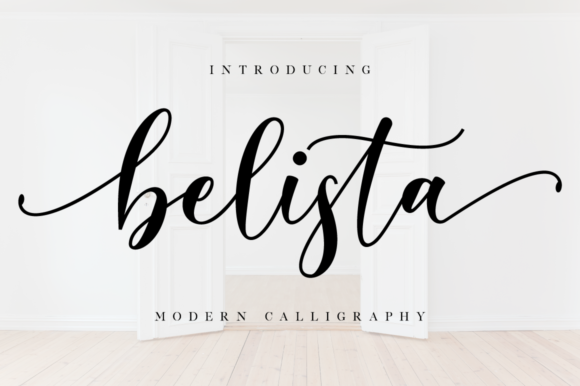
The Perfect Script for Your Next Design Masterpiece
Have you ever stared at a blank page, searching for that perfect font to bring your design to life? We’ve all been there, pouring over font libraries, scrolling through endless options, until the perfect one finally catches our eye. For designers, finding the right font can be the difference between a good design and a great one. That’s why we’re excited to introduce you to the Belista Script Font, a beautiful and light script font that’s sure to turn any design project into a standout.
With its elegant feel and versatility, the Belista Script Font is the perfect addition to any designer’s toolkit. Whether you’re working on a wedding invitation, a branding project, or a social media campaign, this font is sure to add a touch of sophistication and class. Its value lies in its ability to elevate your designs, making them feel more polished and professional. By incorporating the Belista Script Font into your next project, you’ll be able to take your designs to the next level and make a lasting impression on your audience.
Belista Script Font Key Features
- Font Family: Belista Script, with a unique, elegant script style
- Unique Characteristics: Includes swashes, flourishes, and connecting strokes for a more natural, handwritten look
Belista Script Font Review
Overall, I think the Belista Script Font is a beautiful addition to any designer’s toolkit. It’s perfect for creating elegant and sophisticated designs that need a touch of personality. ✨
- Unique and stylish design: Belista Script Font has a one-of-a-kind aesthetic that sets it apart from more common script fonts.
- Highly customizable: With a wide range of styles and sizes available, you can easily tailor the font to fit your design needs.
- Legible: Despite its decorative appearance, Belista Script Font is still easy to read, making it a great choice for both print and digital designs.
- Limited language support: Belista Script Font may not be suitable for designs that require support for non-Latin scripts.
- May not be suitable for bold or large-scale use: While the font is beautiful in small doses, it can become overwhelming when used extensively.
Overall, I think the Belista Script Font is a great choice for designers who want to add a touch of elegance and sophistication to their designs. With its unique design, high level of customization, and legibility, it’s a great addition to any toolkit. Just be aware of its limitations and use it judiciously. ⚠️
Belista Script is a beautiful script font perfect for creating elegant and sophisticated designs. Some common use cases include:
– Luxury brand logos and packaging
– Fine art and typography projects
– Romantic and whimsical designs